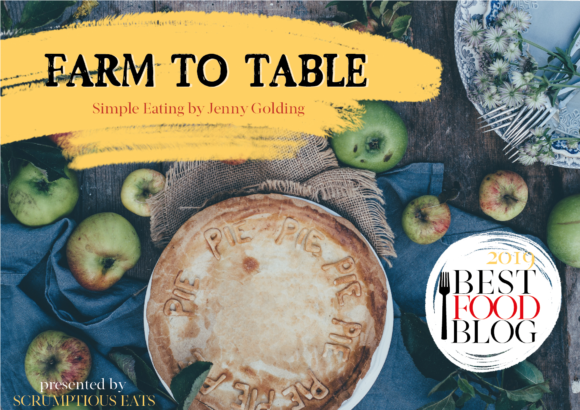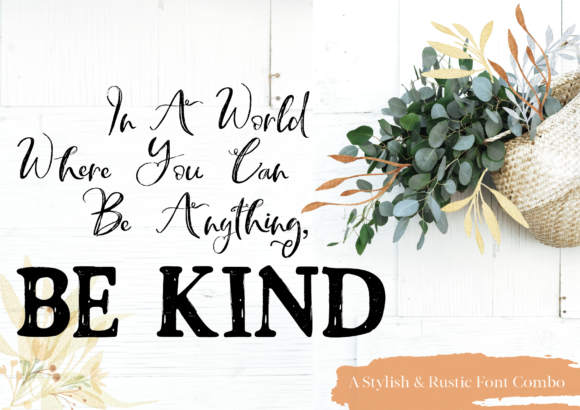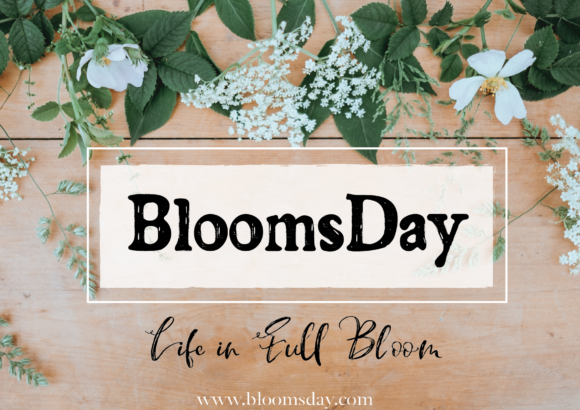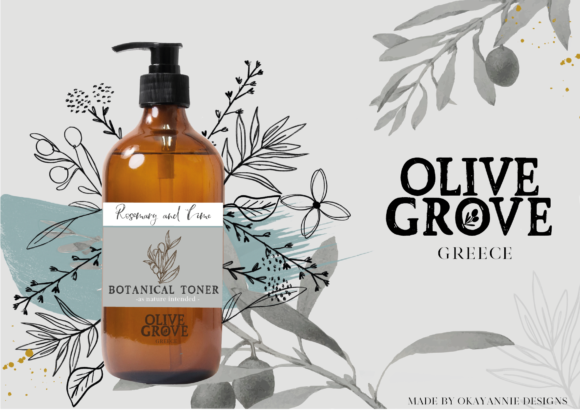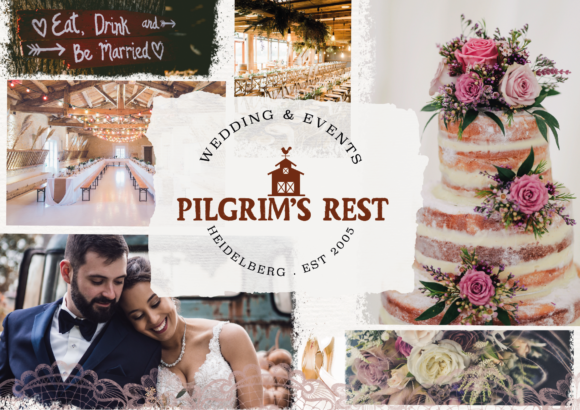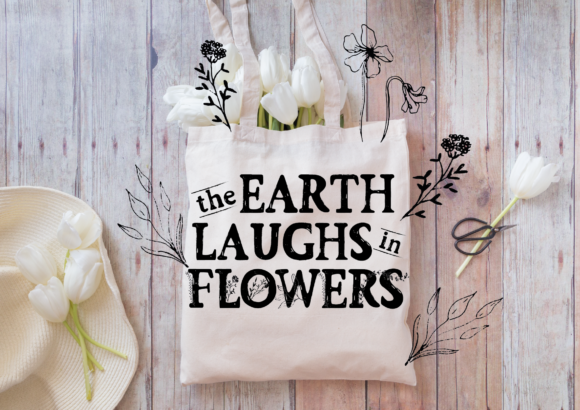
Introduction to Rustic Barnyard Font
Rustic Barnyard is a font family with a vintage appearance.
Get inspired by its casual old-school charm .
Key Features of Rustic Barnyard Font